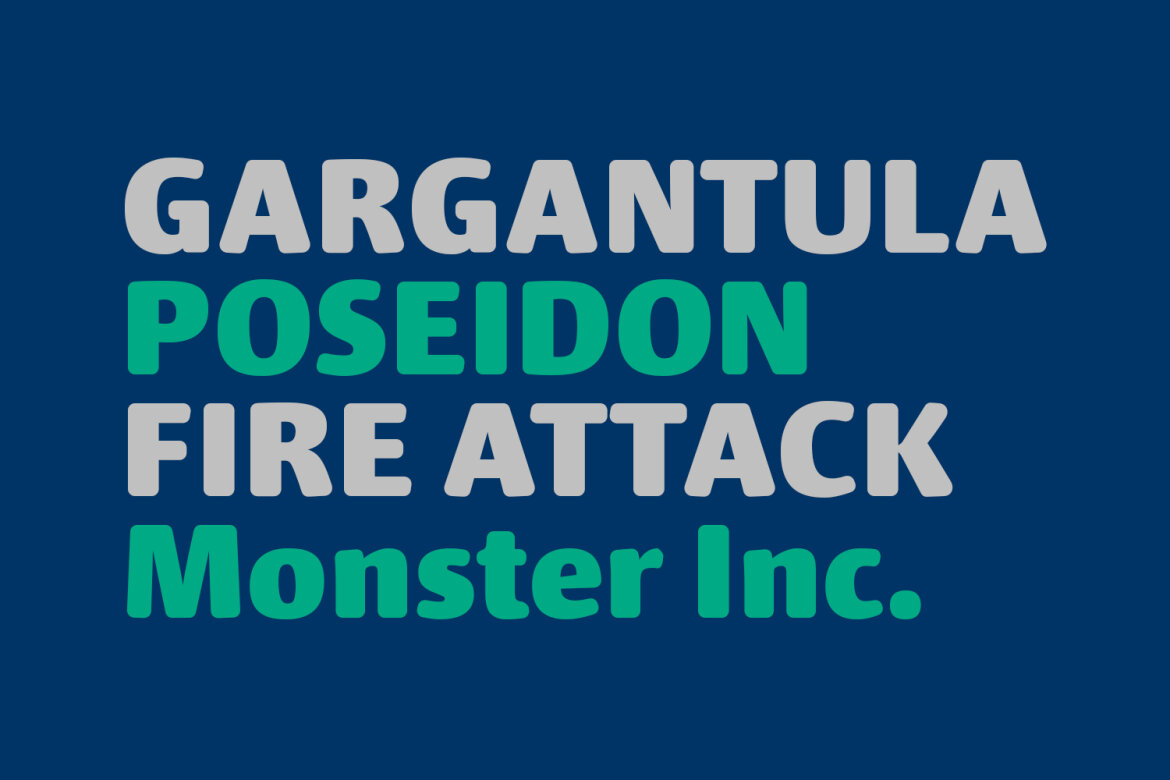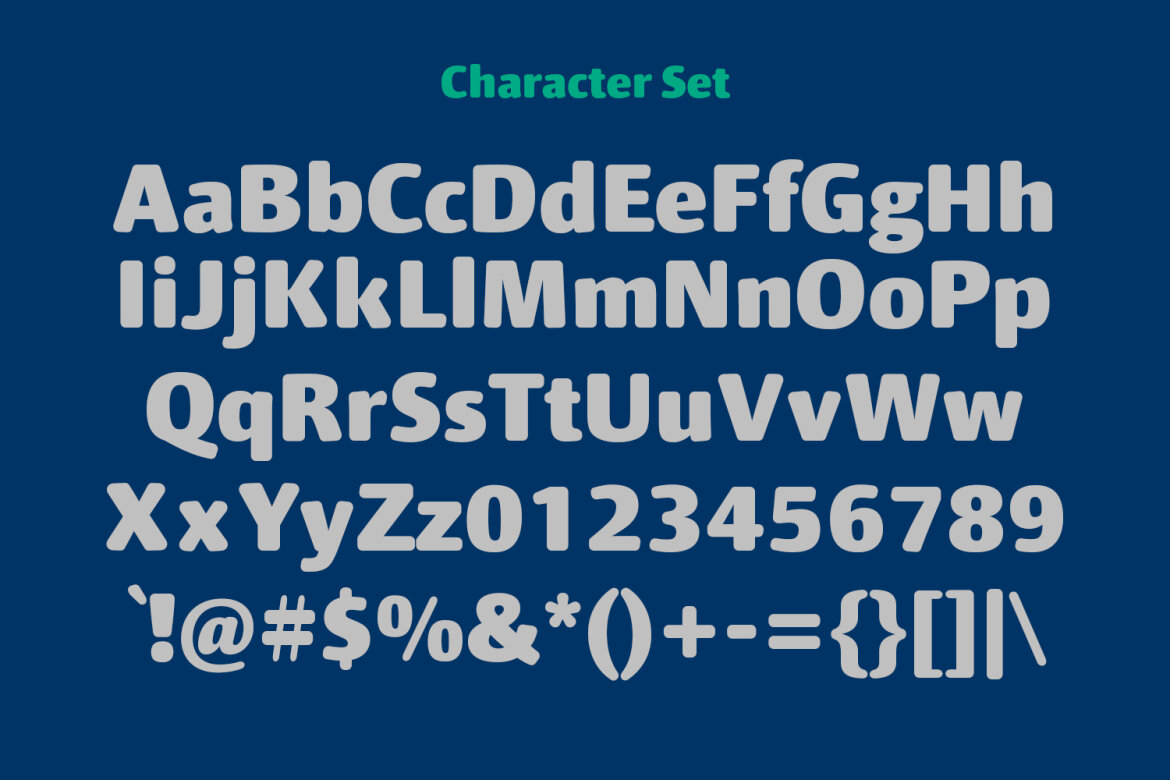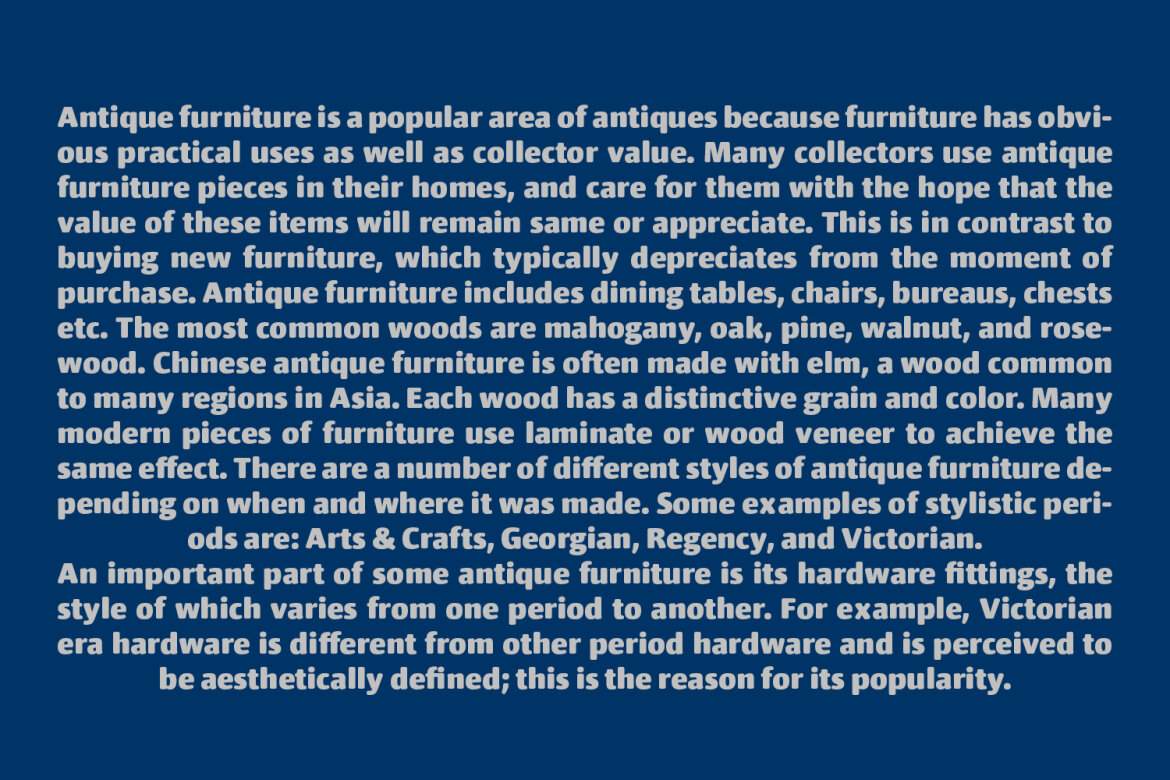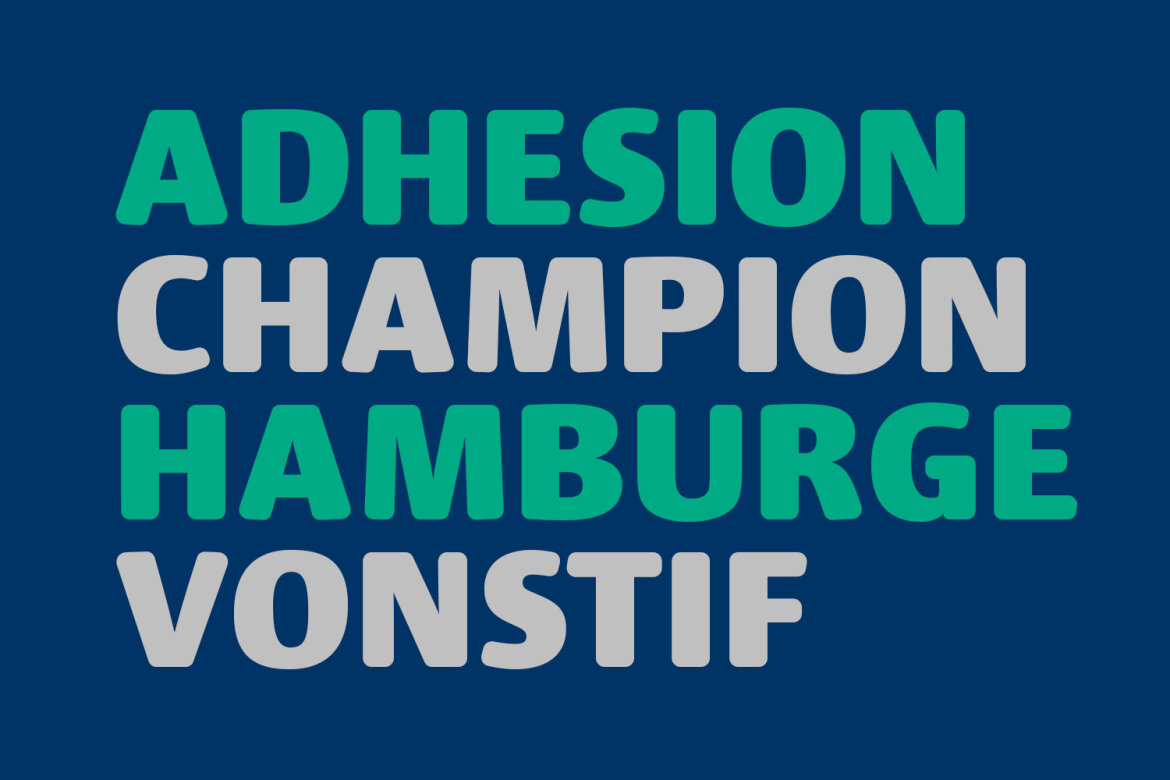
Portilla Rounded FREE Sans Font
Portilla
Portilla is a modern round sans serif font. Bold stroke, fun character with a bit of ligatures and alternates. To give you an extra creative work. Portilla font support multilingual more than 100+ language. This font is good for logo design, Social media, Movie Titles, Books Titles, a short text even a long text letter and good for your secondary text font with script or serif. Make a stunning work with Portilla font.